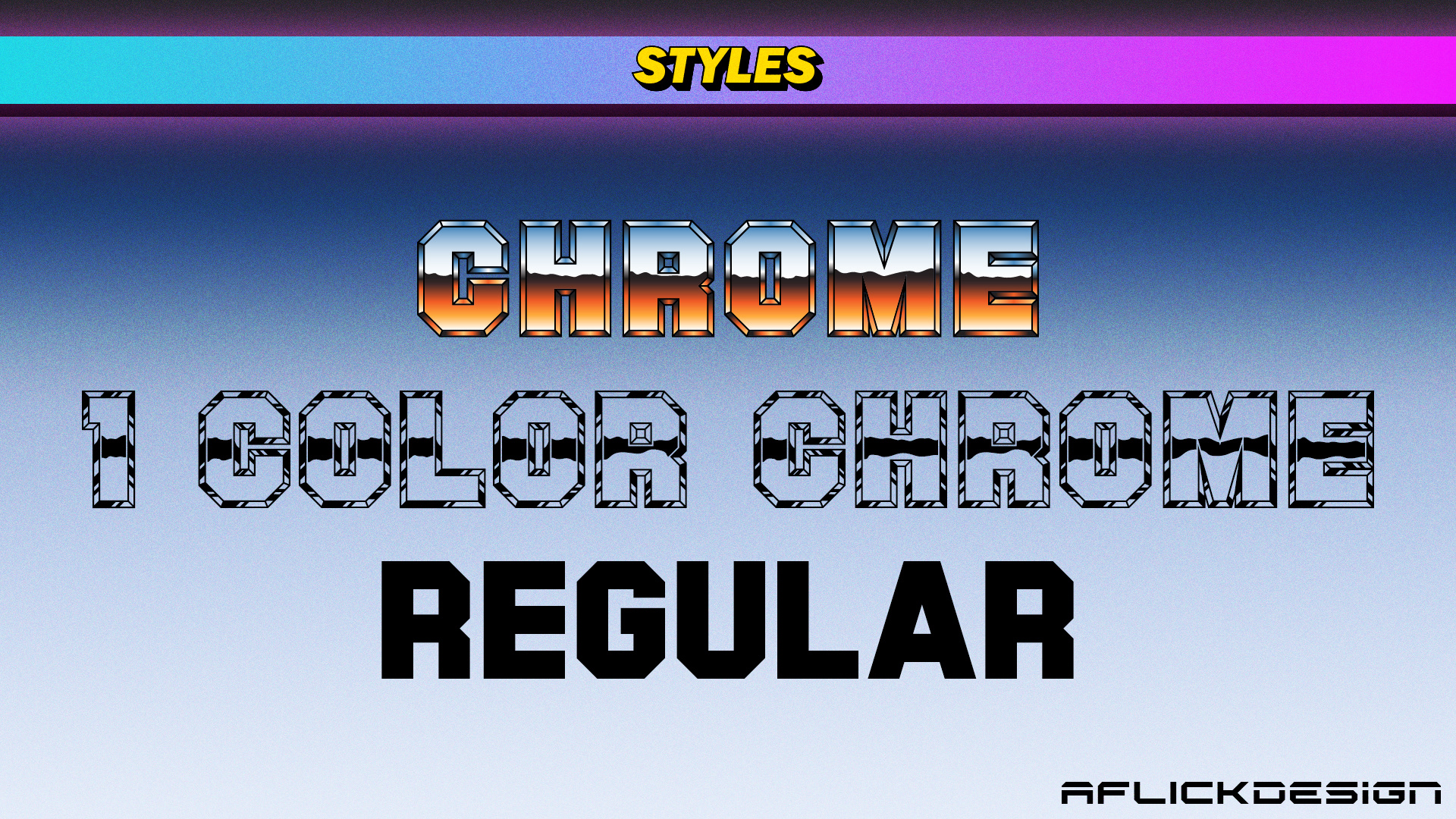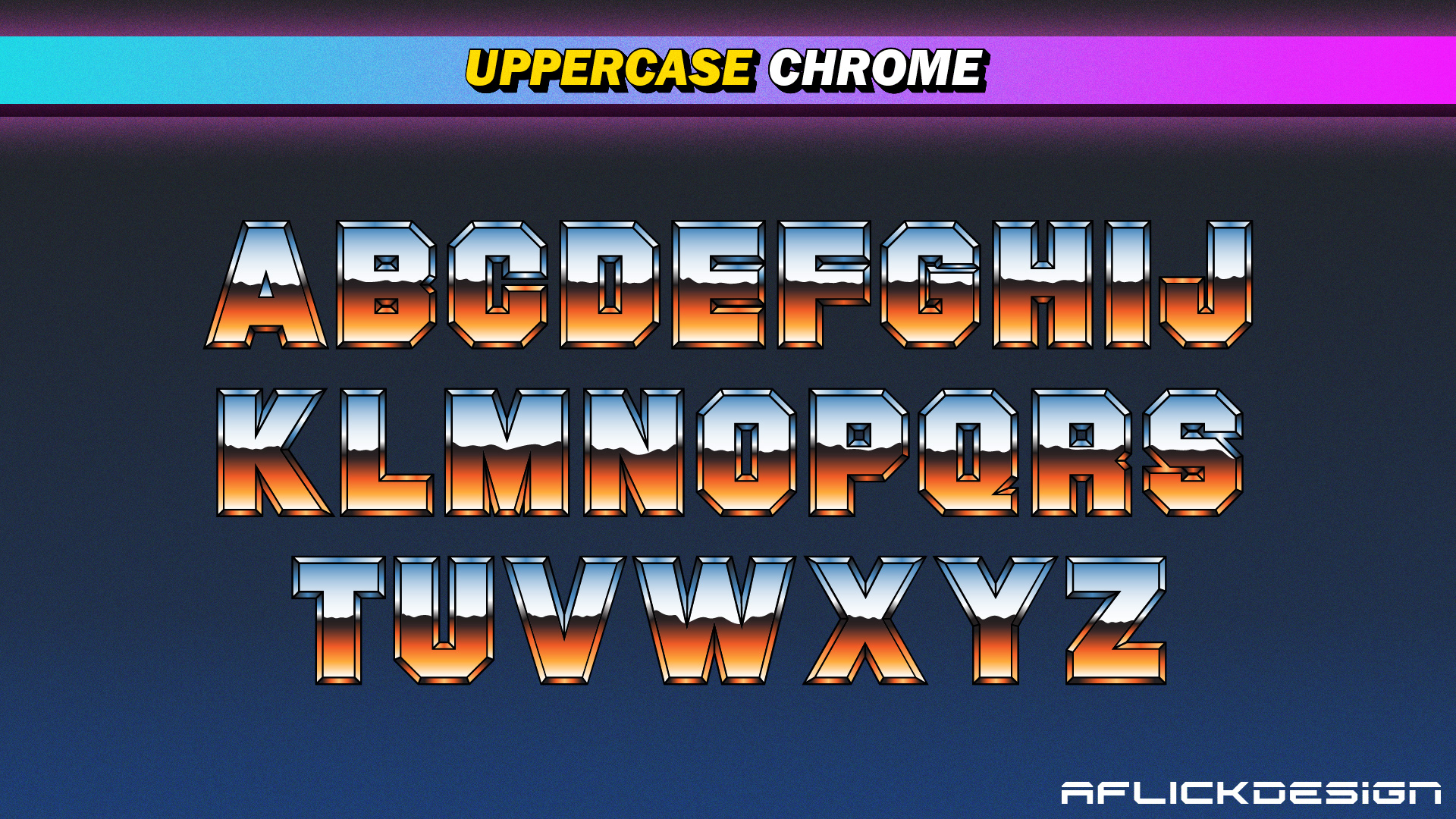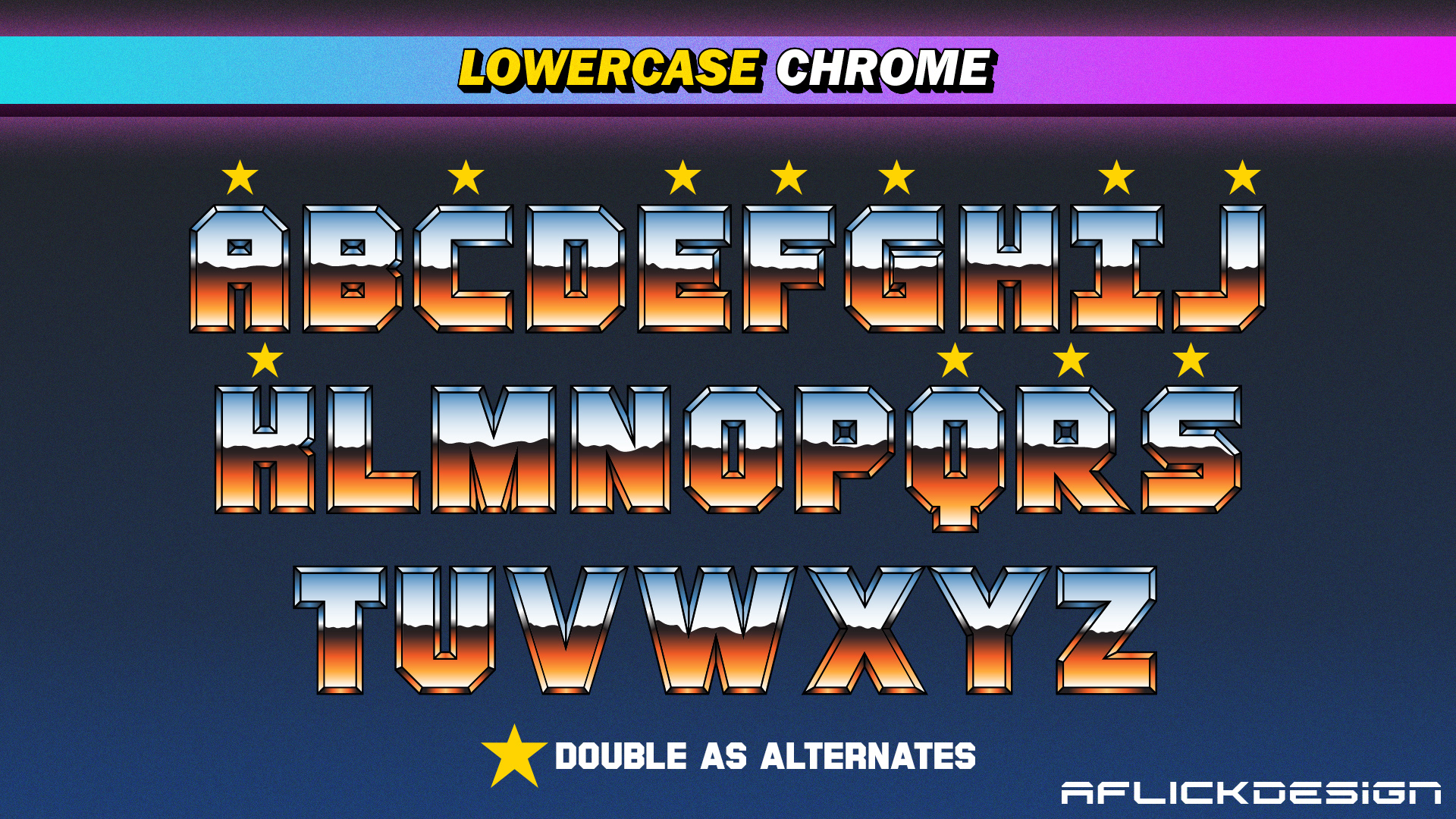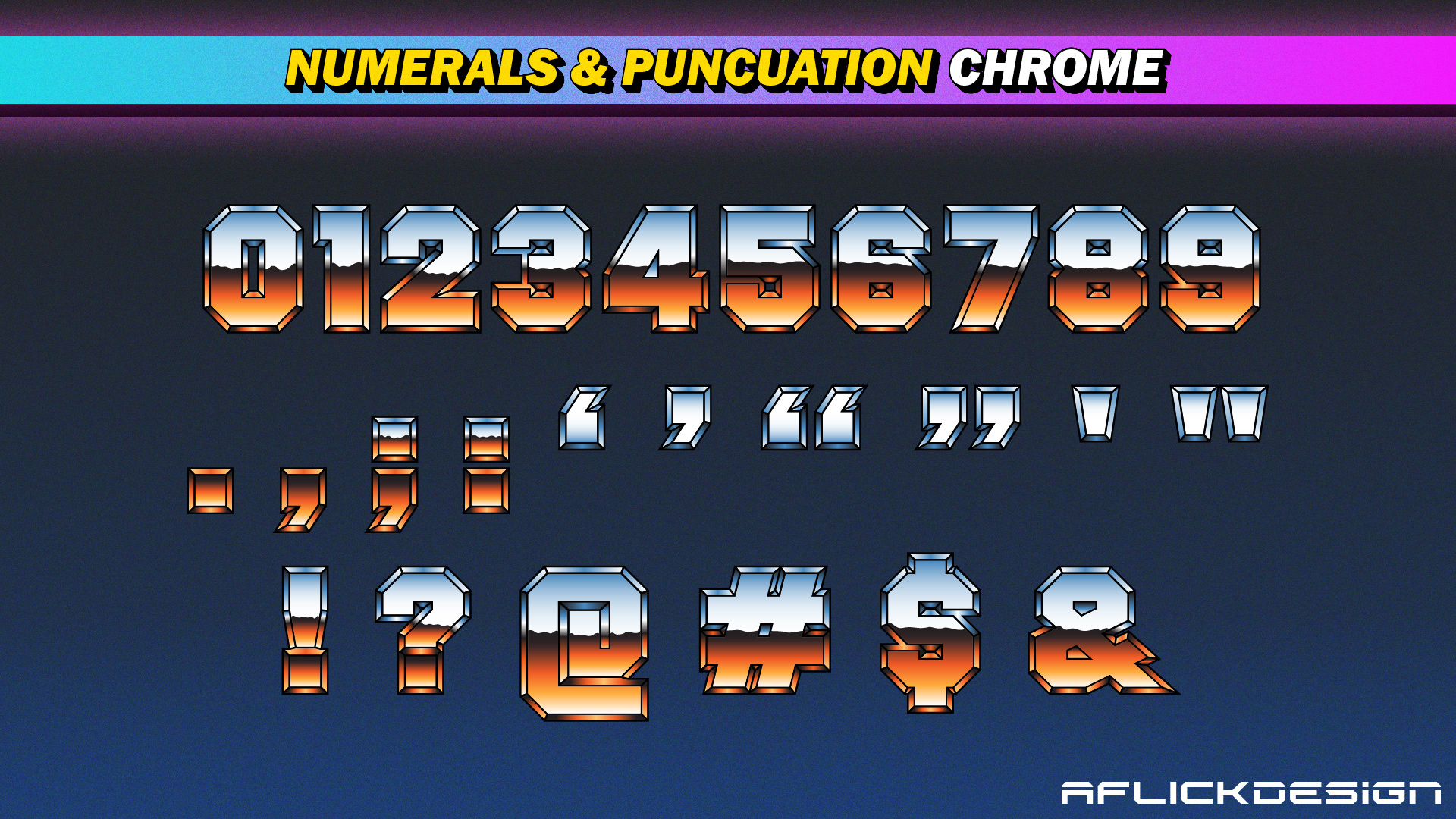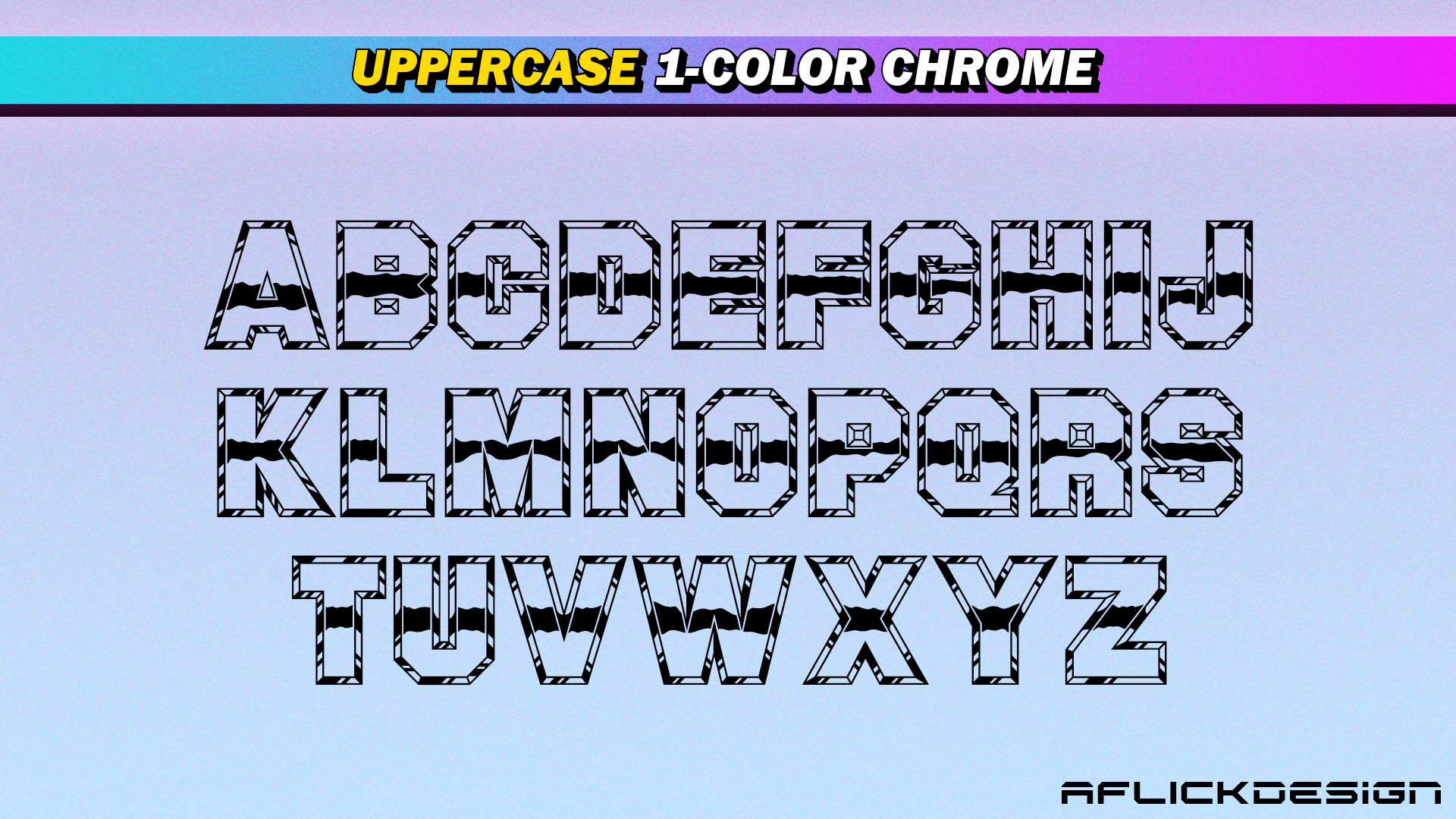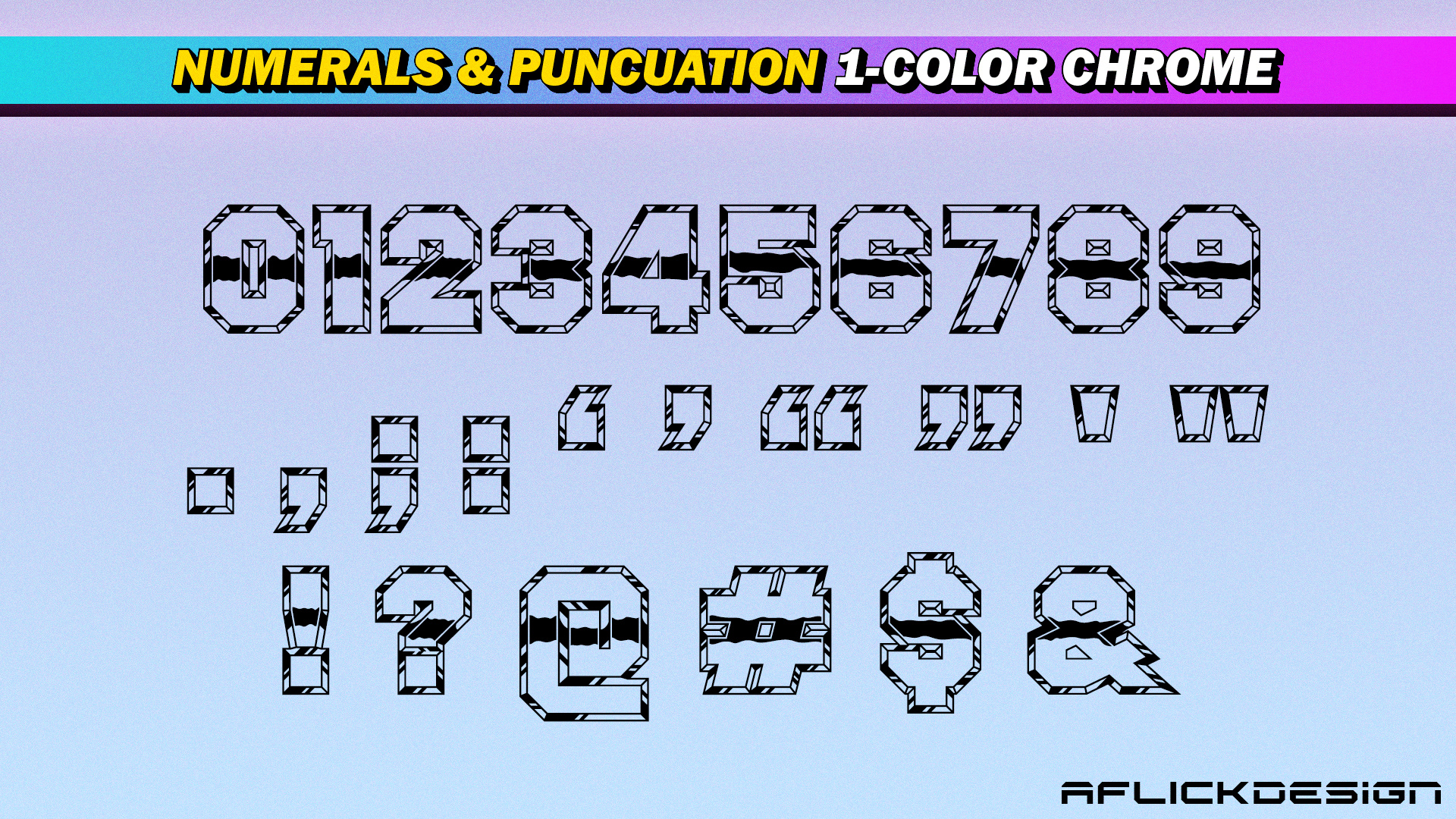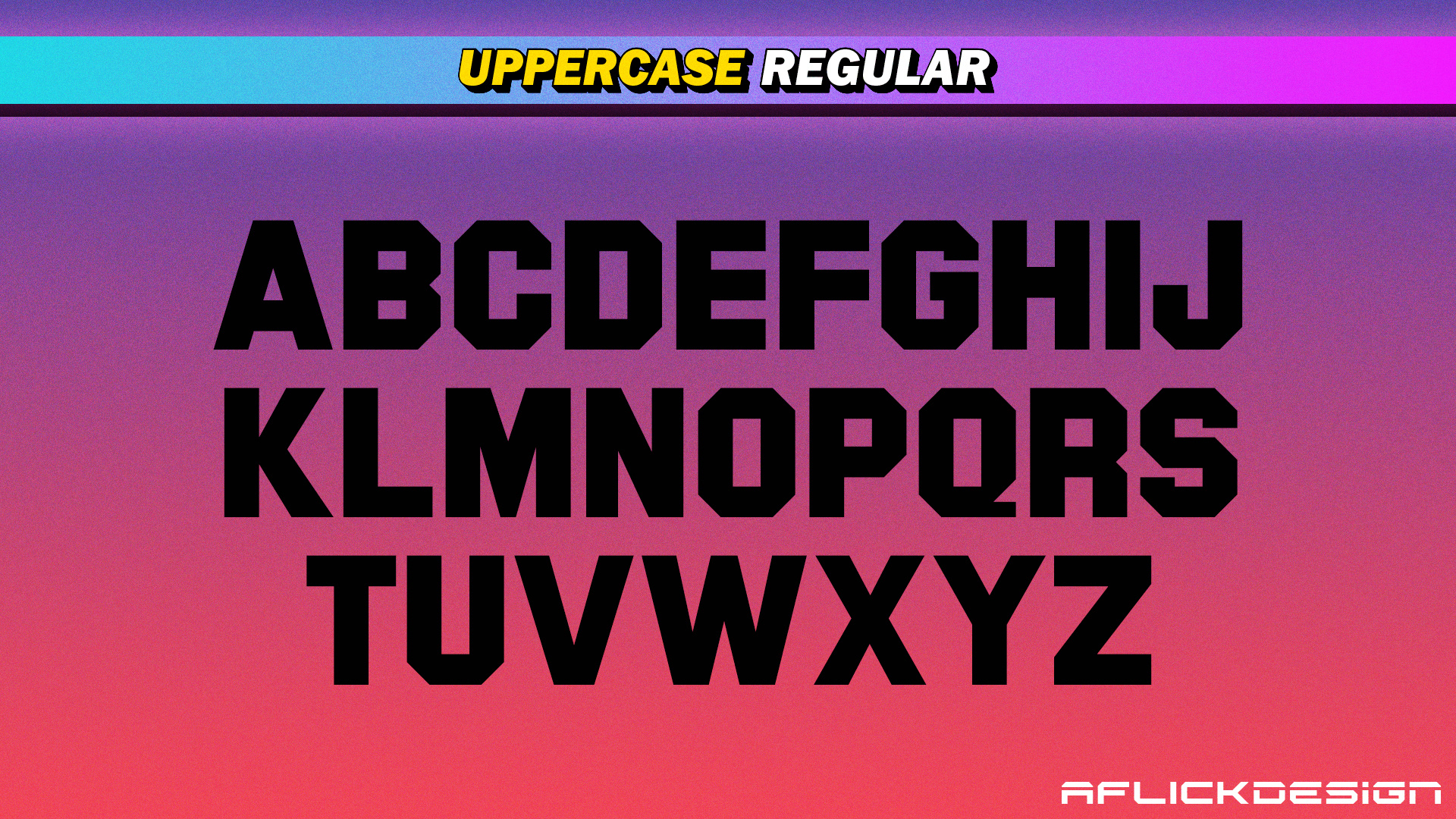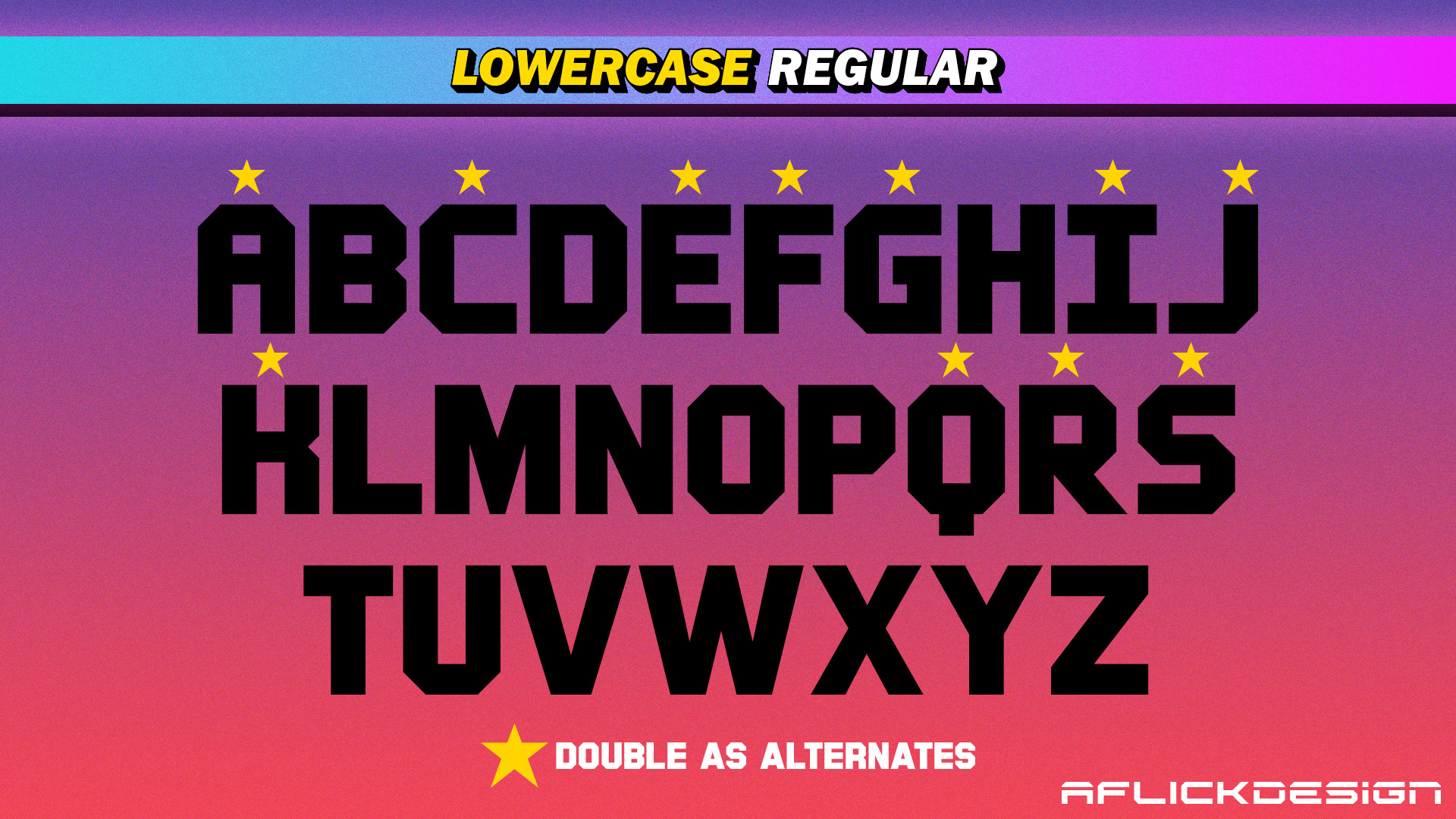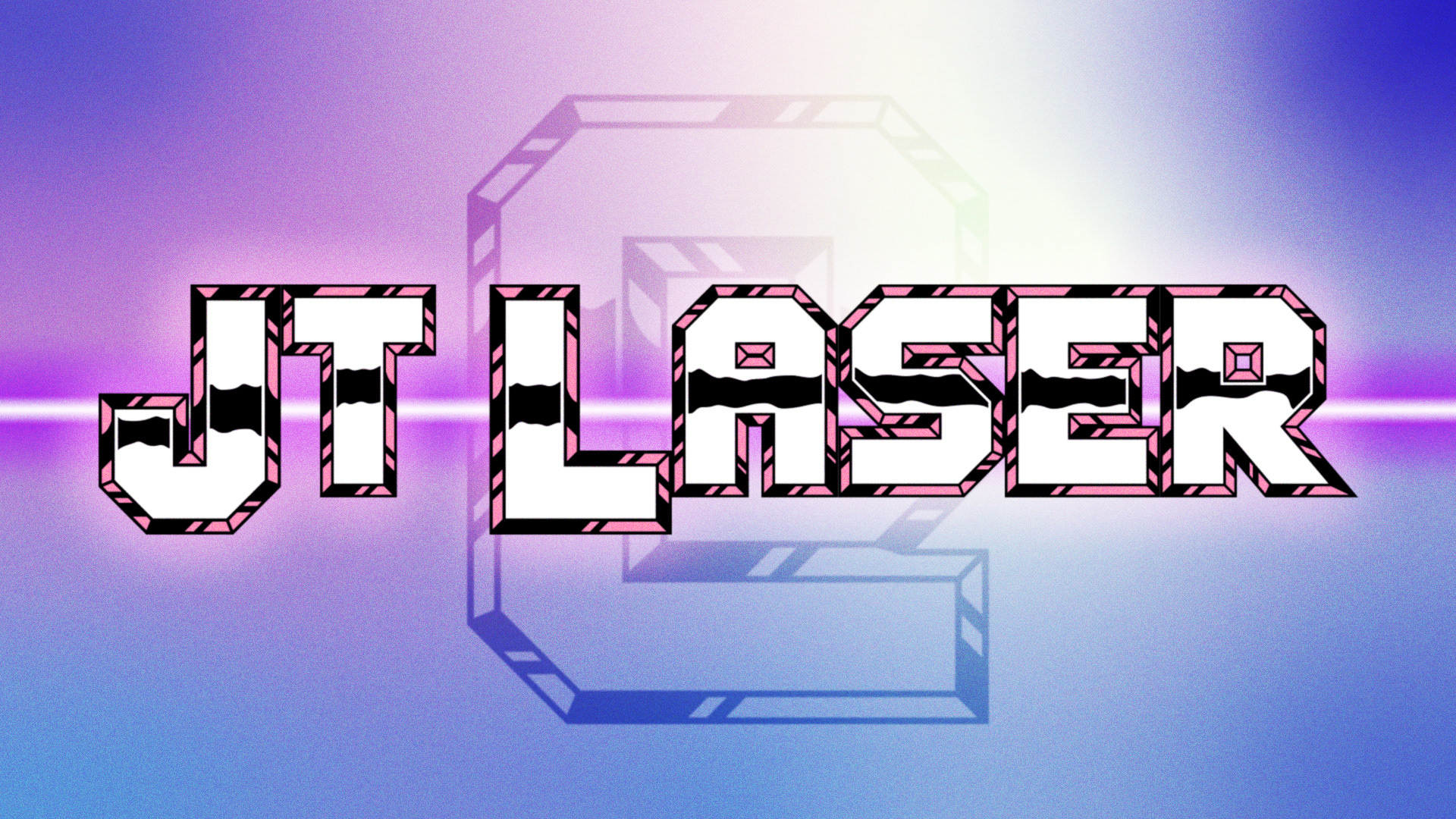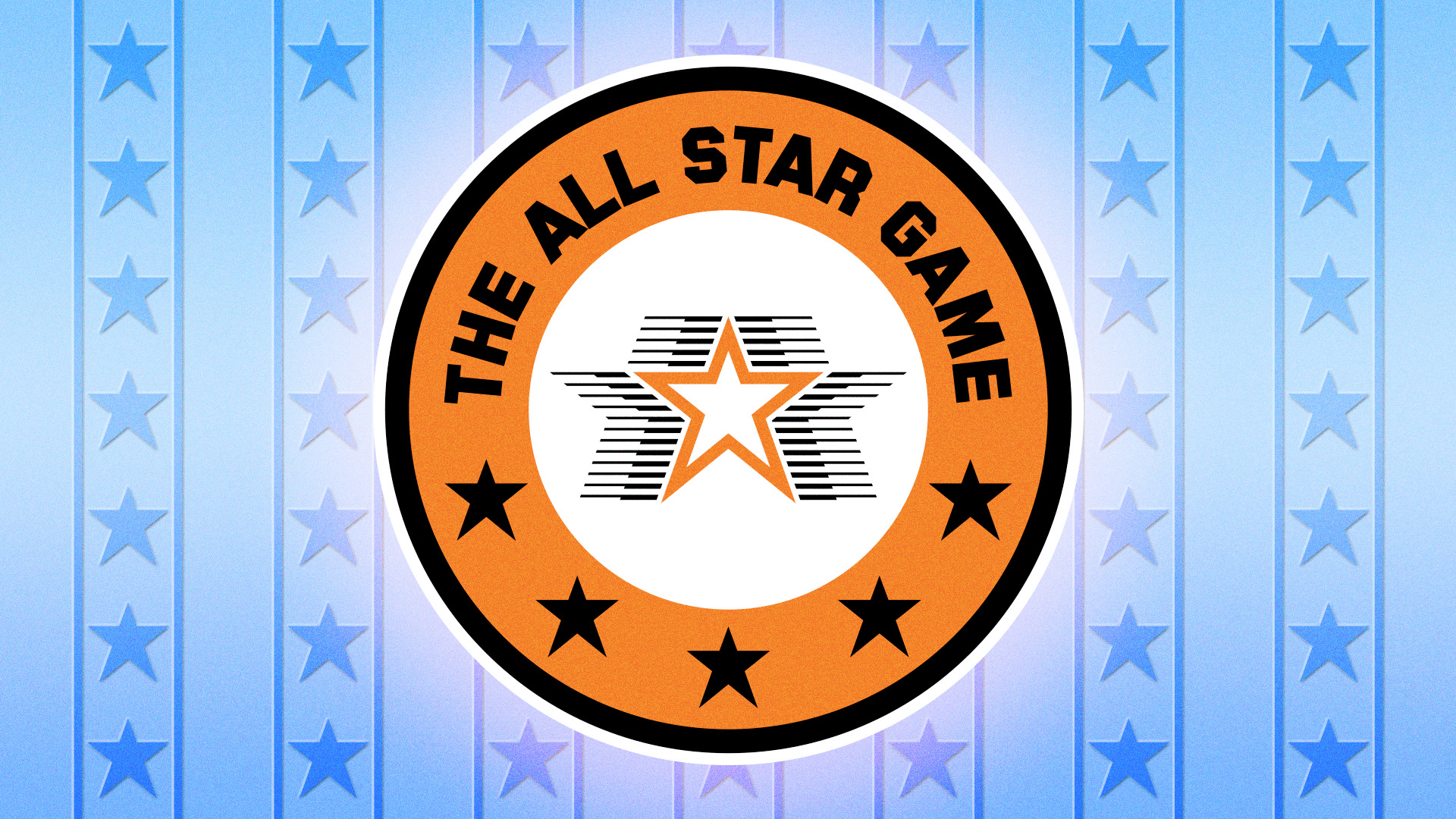
Typeface design based on the airbrush, chrome lettering for sports advertisements and designs of the past; using the Fontself app to create an OpenType-SVG Color font. A classic geometric sans-serif with 3 styles: Regular, One-Color Chrome, and Chrome (Color font). Perfect for retro sports designs and other retro applications that require the power of chrome.